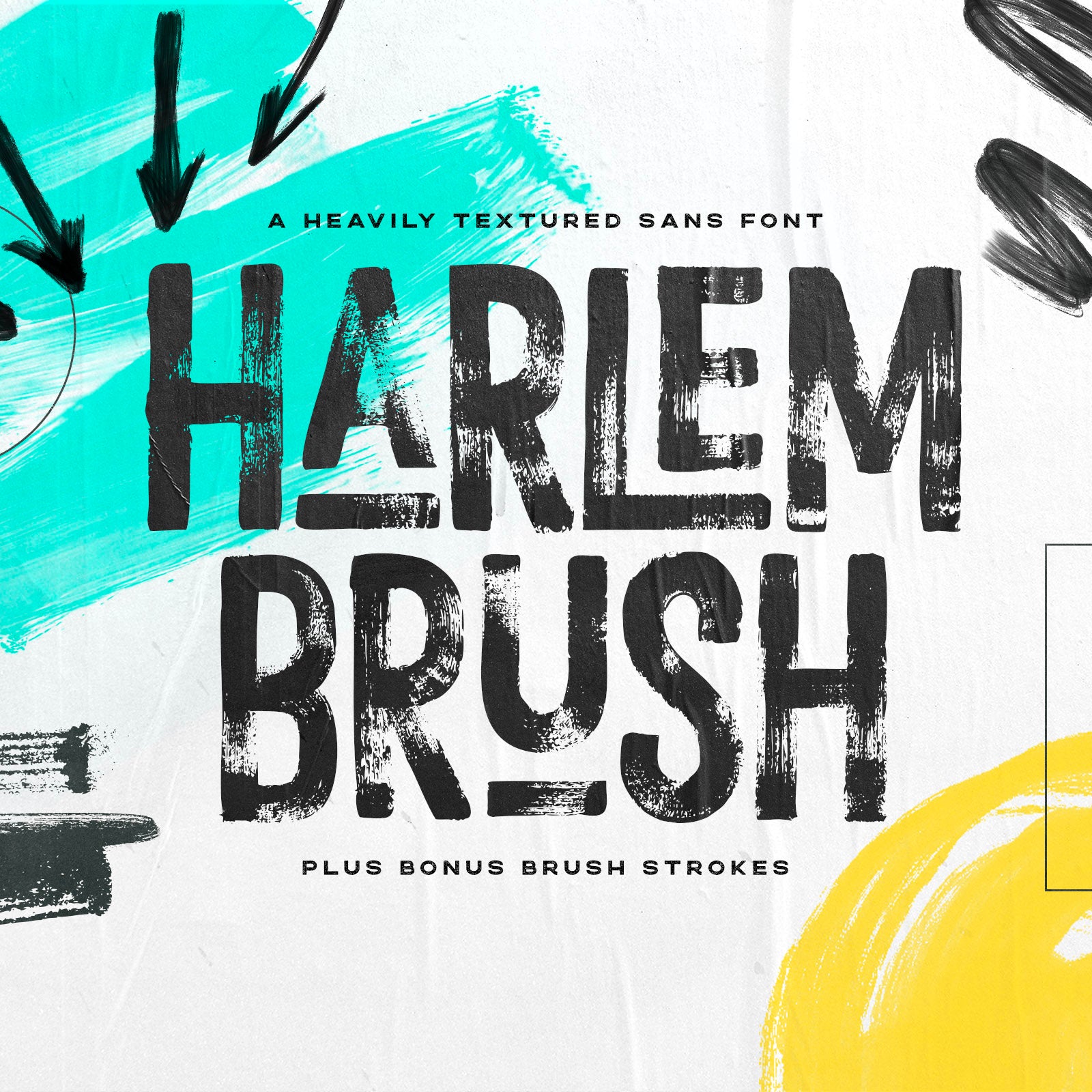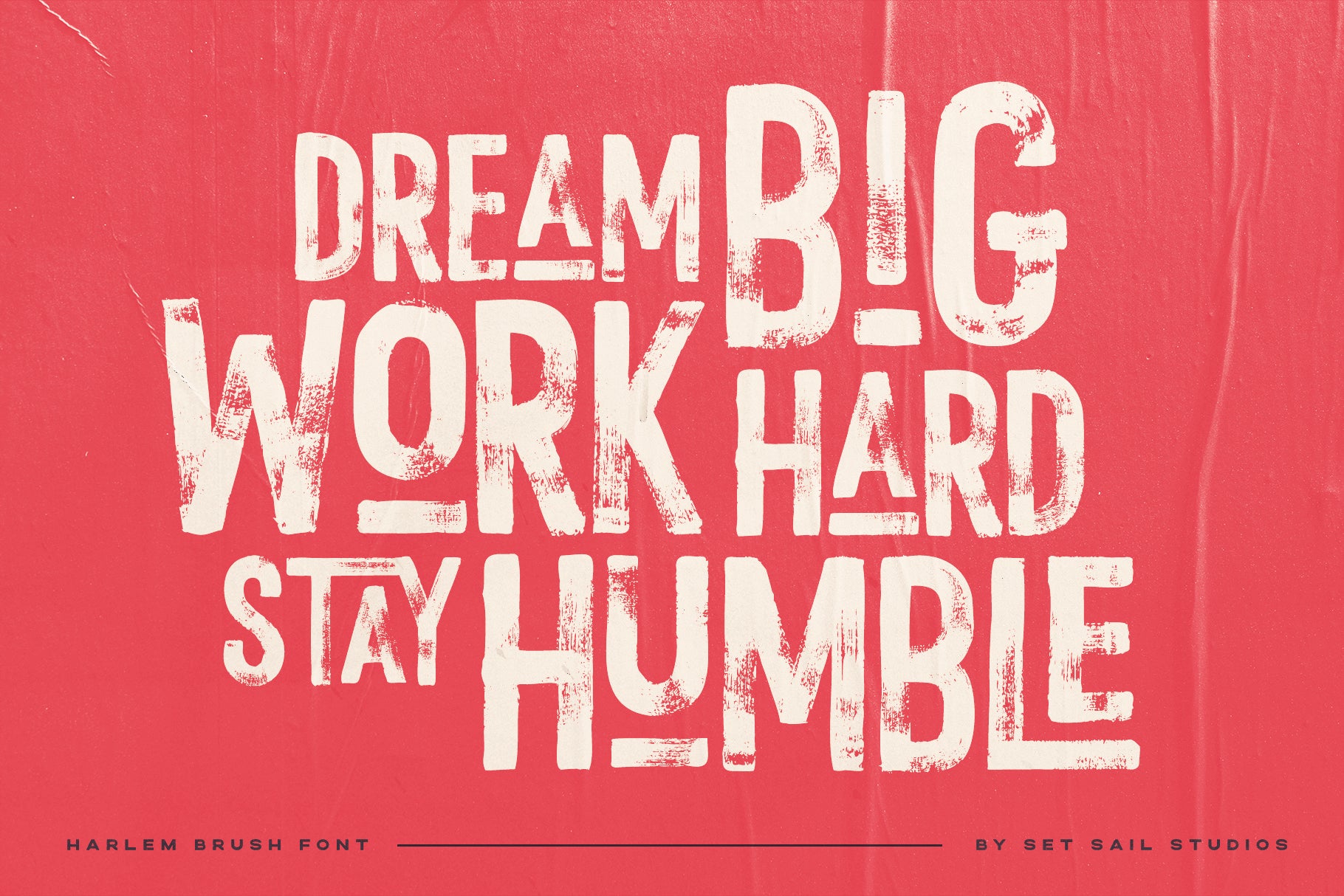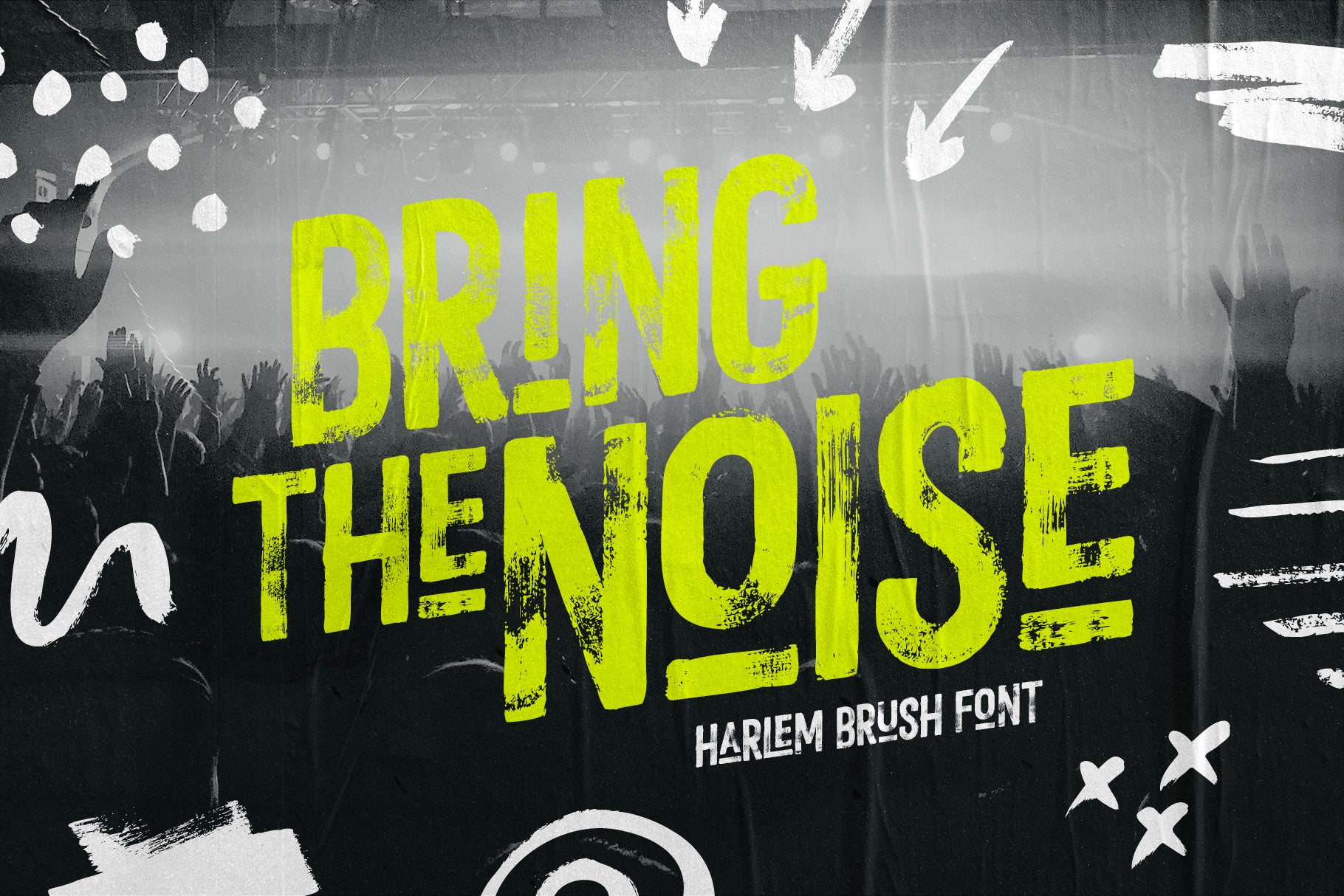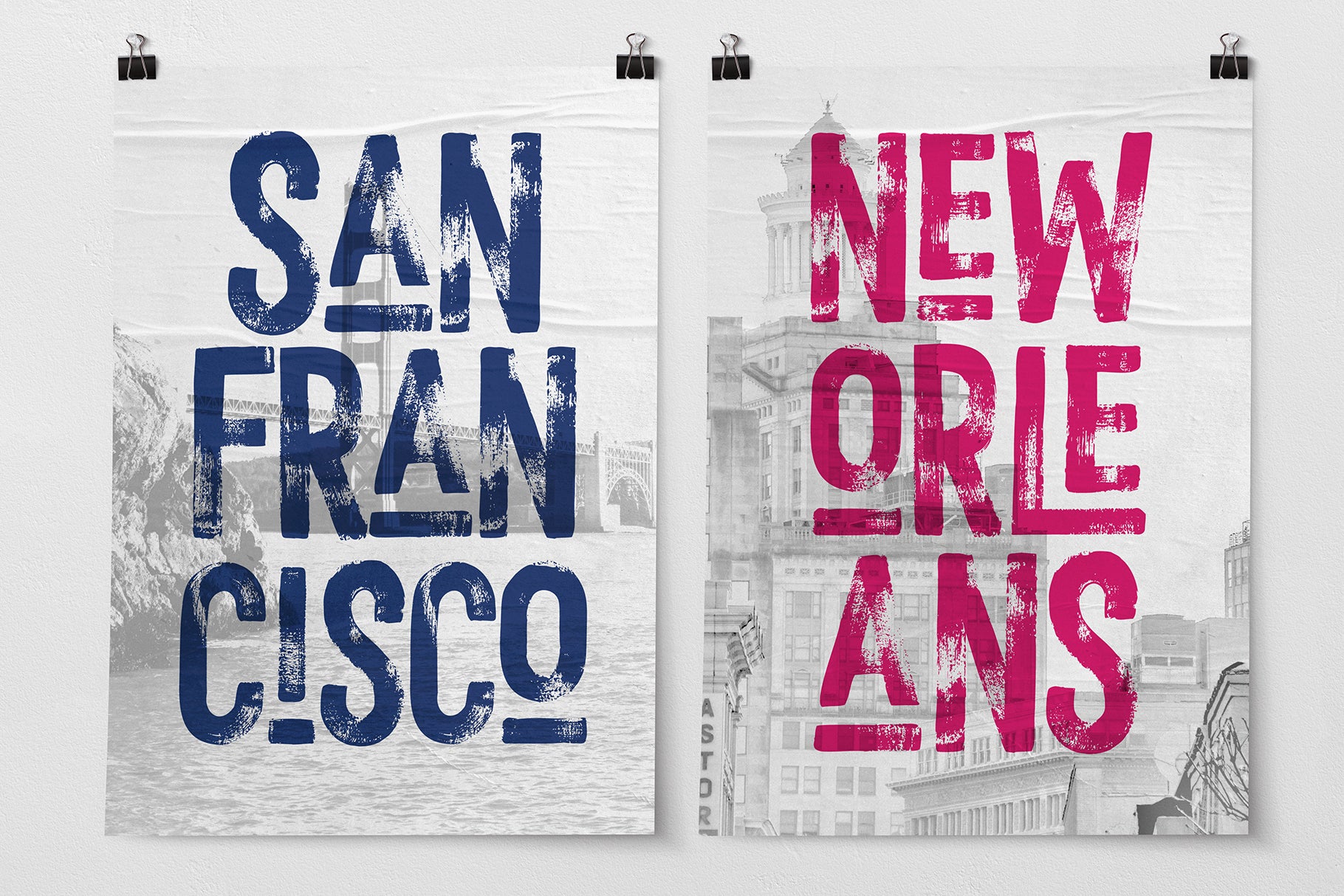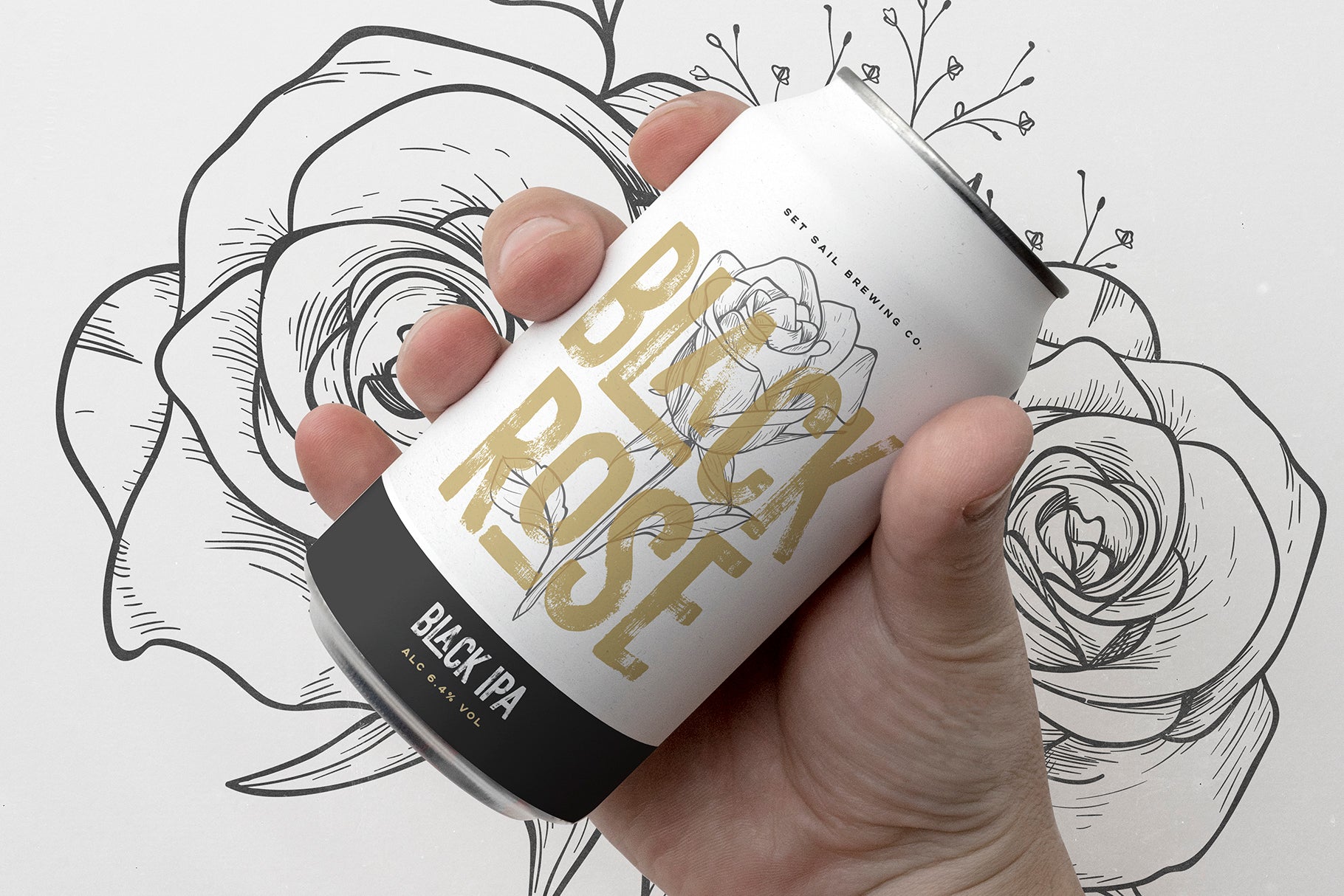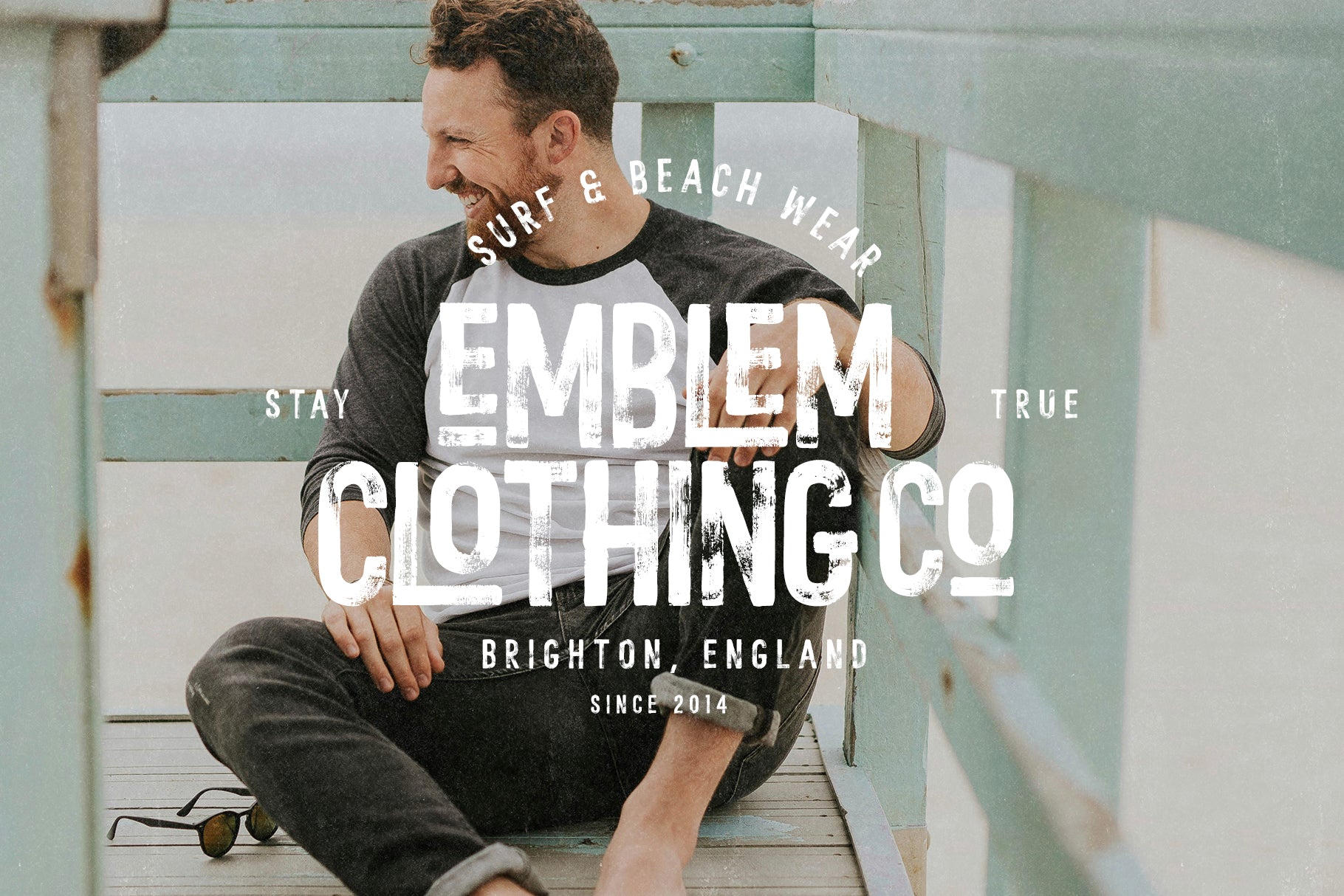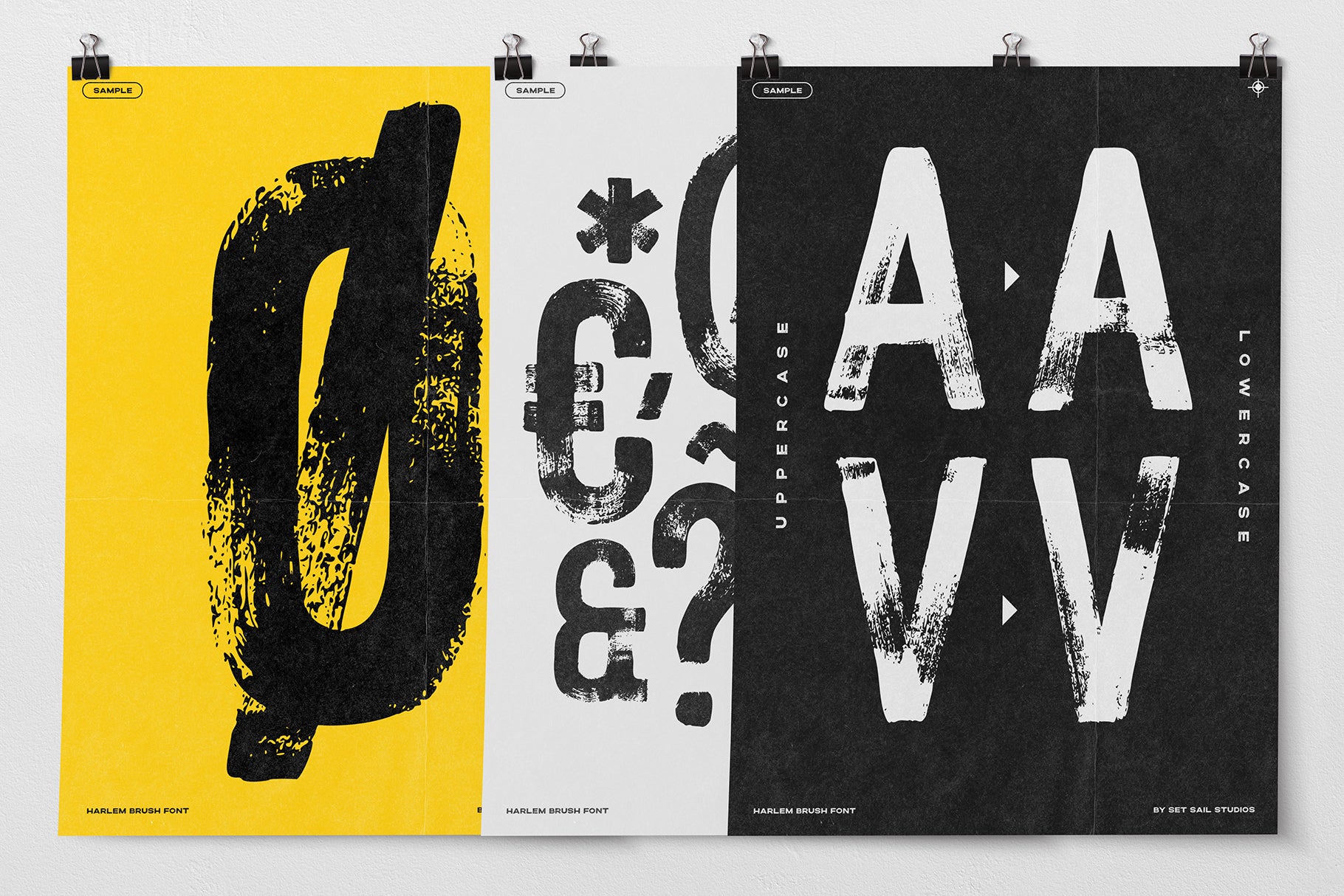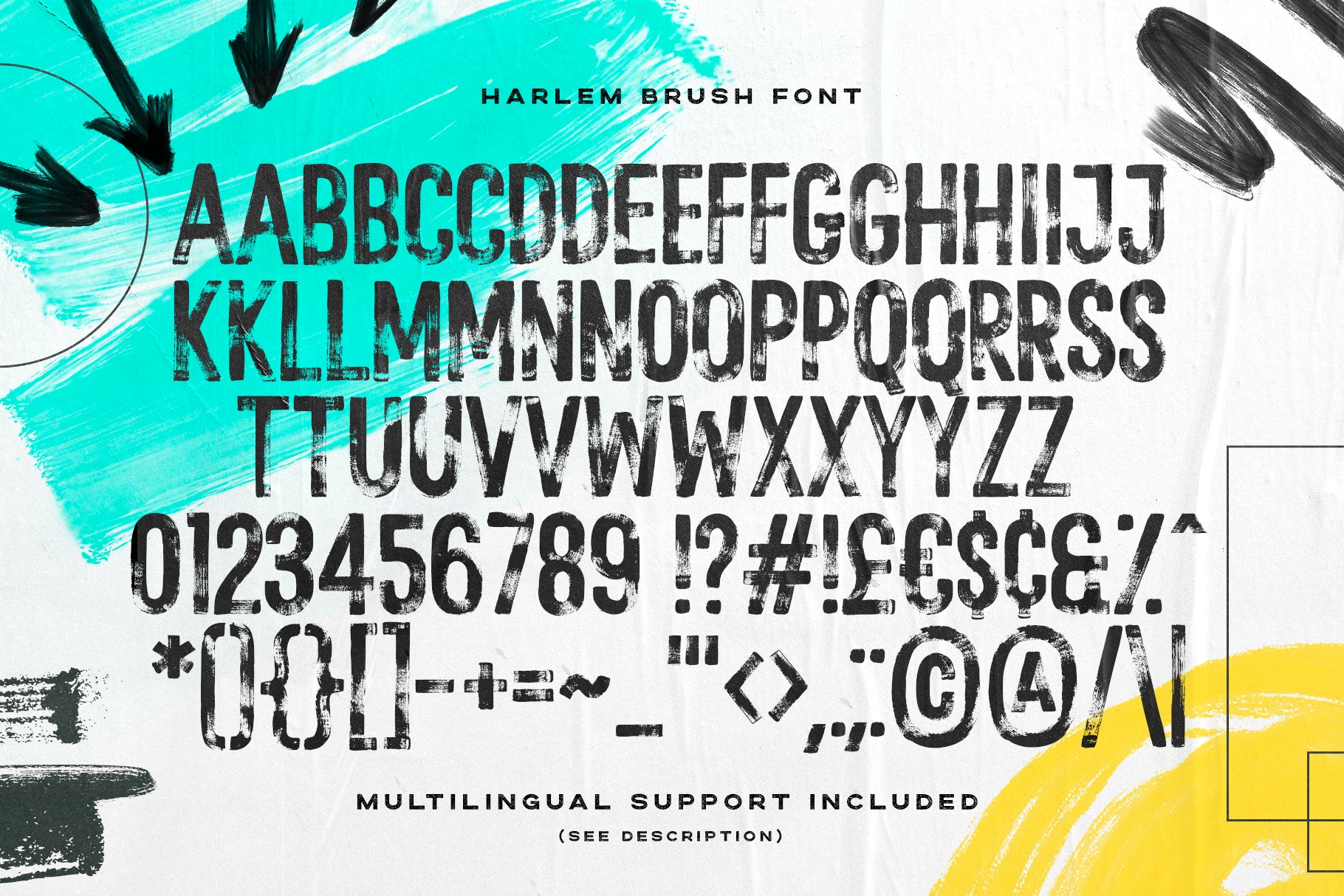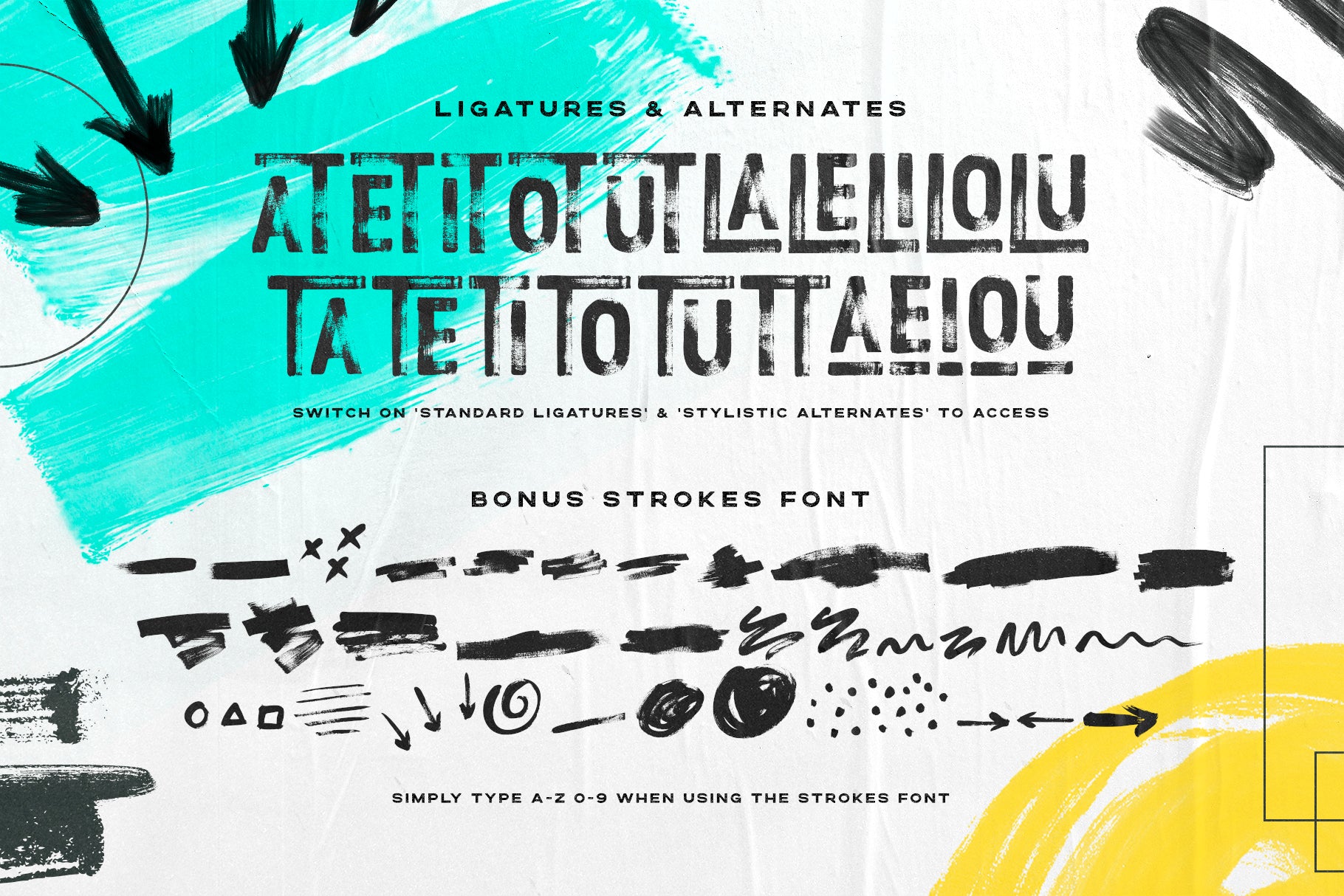
Harlem Brush Font
Harlem Brush Font is a hand-painted sans-serif typeface featuring heavily distressed brush textures. It includes a full alternate set of A-Z characters, 21 ligatures and small-caps, 35 bonus paintbrush strokes, and extensive punctuation and language support for multiple languages.